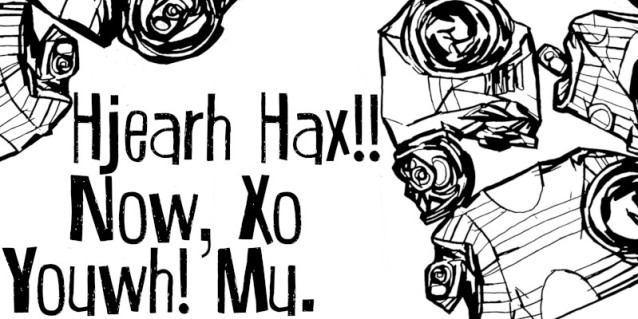
Hjearh Hax Now Xo Youwh Mu Font
Hjearh Hax!! Now Xo Youwh! Mu Font is a chunky, comic, and cartoon display font. With its neat and joyful personality, this font will enhance any project you wish to create!
Hjearh Hax Now Xo Youwh Mu Font
Hjearh Hax!! Now Xo Youwh! Mu Font is a chunky, comic, and cartoon display font. With its neat and joyful personality, this font will enhance any project you wish to create!